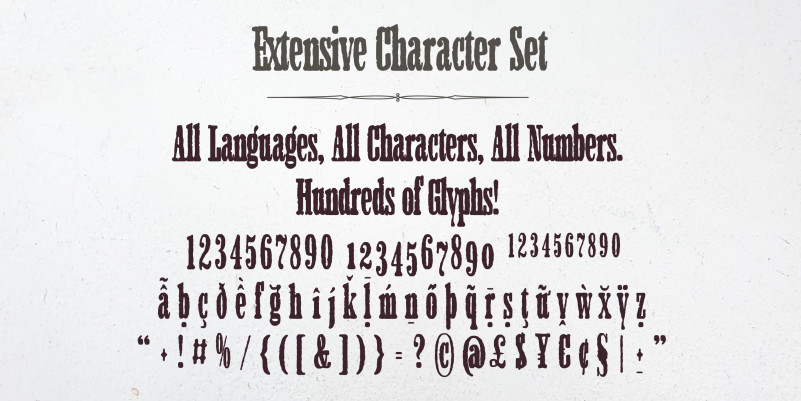
Unchained Font
Unchained Display Font, This font is perfect for stickers, retro projects, craft projects, shirts, svg designs, procreate designs, branding, blogs, logos, invitations and more!